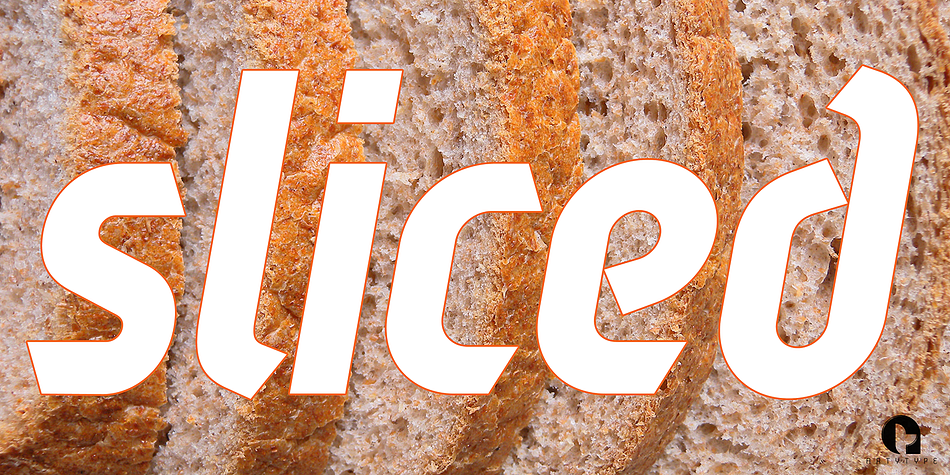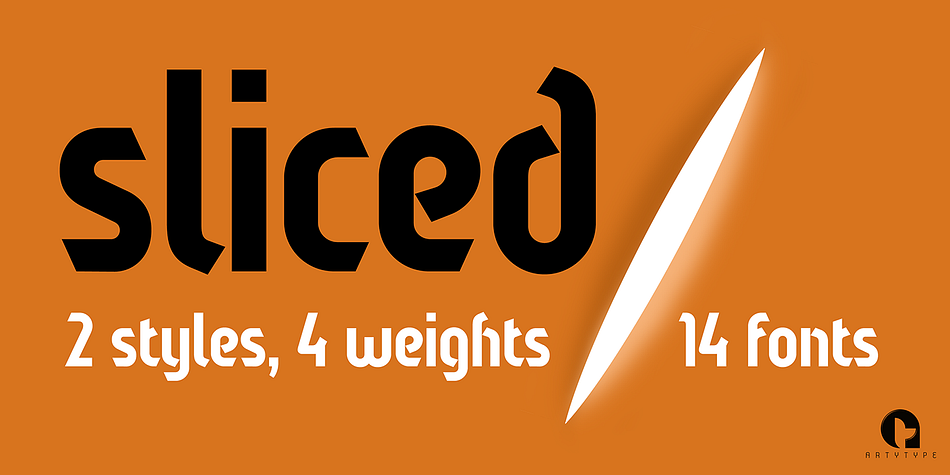
Sliced
Sliced is a display sans font family. This typeface has seven styles and was published by ArtyType.
The name of this robust typeface is adopted quite literally from the slice taken out of certain characters.
The same sliced angle is also applied to many of the terminals, creating a clean-cut styling throughout the family.
The tilted versions emphasise the descriptive name further, with an implied cutting stance.
Wider versions go even further still, taking on a more thrusting, squat dynamic compared to the condensed styles.
The standard Sliced family is complemented by a lighter, more open set, Sliced Open, which extends the versatility and design flexibility of the typeface and comprises a total of 14 font styles, all with extended European character sets.
The name of this robust typeface is adopted quite literally from the slice taken out of certain characters. The same sliced angle is also applied to many of the terminals, creating a clean-cut styling throughout the family.
The tilted versions emphasise the descriptive name further, with an implied cutting stance. Wider versions go even further still, taking on a more thrusting, squat dynamic compared to the condensed styles.
The standard Sliced family is complemented by a lighter, more open set, Sliced Open, which extends the versatility and design flexibility of the typeface and comprises a total of 14 font styles, all with extended European character sets.